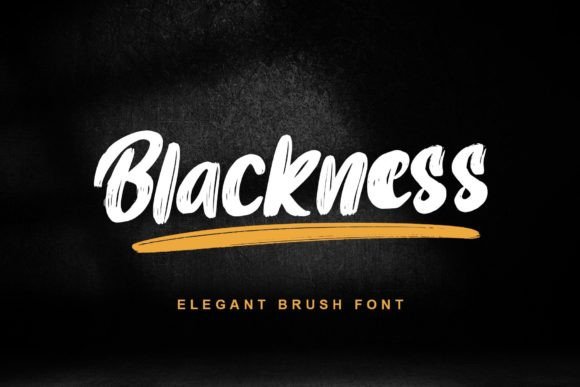
Step into the mystifying charm of Blackness Font, a compelling handwritten masterpiece from the creative haven of thomasaradea. This remarkable font captivates with its uniquely strong aura, creating a visually enchanting experience that draws attention and sparks imagination.
Blackness Font is a symphony of elegance and originality, inviting you to adorn your Cricut projects with a touch of distinction and artistry. Its carefully crafted glyphs and swashes seamlessly harmonize to weave tales of beauty and sophistication, making it an invaluable asset for crafting logos, brands, posters, captivating book covers, and more.
Prepare to be entranced by the unparalleled allure of Blackness Font, an exceptional choice for those seeking the extraordinary. Step into its world of elegance and let your projects shine with the radiant luminosity of Blackness.